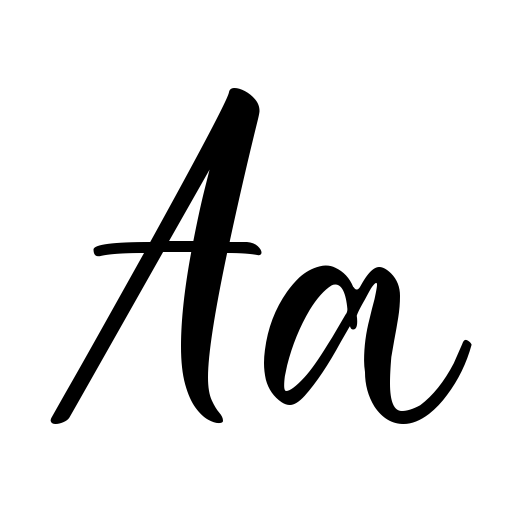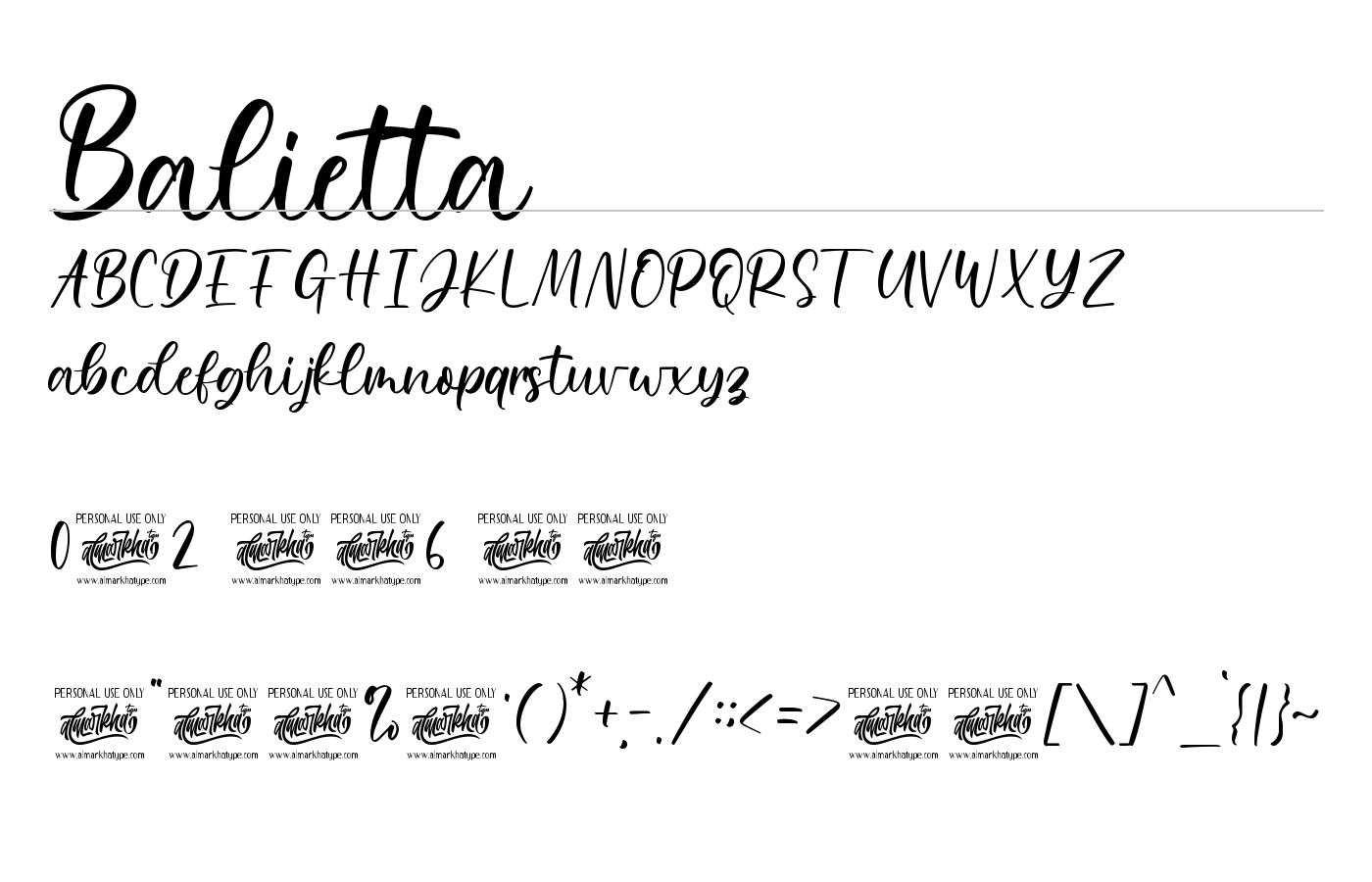
Balietta is a graceful script font with fluid, handwritten strokes that combine elegance and casual charm. Its smooth, moderately high x-height and varied letterforms make it perfect for adding a personal yet polished touch to invitations, branding, and social media graphics. This font works best in creative projects that seek to convey warmth, sophistication, and a friendly, approachable style.
Balietta Font
About Balietta Font
| Font family | Balietta Font |
| Designer | Almarkhatype Studio - Abdul Malik -Ghazi |